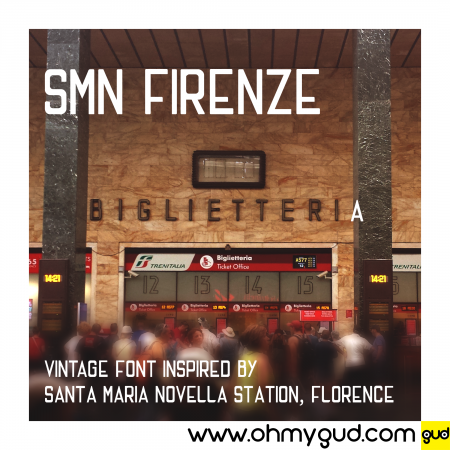
SMN Firenze Font
Voyage to the heart of Florence, where SMN Firenze Font dwells, a captivating sans serif typeface that echoes the allure of the city's iconic Michelucci Station. Crafted by the talented GUD, SMN Firenze is not just a font; it's an artistic journey through the streets and piazzas of Florence, capturing the essence of the city's rich heritage and timeless beauty.
With its clean lines and elegant curves, SMN Firenze exudes an air of sophistication and grace. Each letterform is meticulously designed to evoke the spirit of the Renaissance, seamlessly blending classicism with a modern twist. Whether you're a seasoned designer or just starting out, SMN Firenze will effortlessly elevate your creations, adding a touch of Florentine charm to your every word.
Unleash the power of storytelling with SMN Firenze. Let your words dance across the page, imbued with the romance and intrigue of Florence. Craft logos that exude elegance, design brochures that captivate the imagination, or create social media posts that spark wanderlust. The possibilities are endless, limited only by your creativity.
Step into the world of SMN Firenze and experience the magic of Florence through typography. Let your designs bloom with the beauty of this remarkable font, capturing the essence of art, history, and culture. Embrace the spirit of Florence and let SMN Firenze Font guide you on a creative odyssey that will leave a lasting impression.